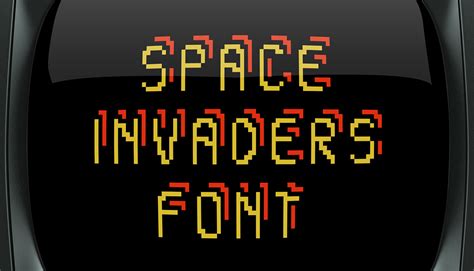
Space Invaders Font. Otf / ttf total files: Web learn about the history and origin of space invaders font, a 1978 arcade game inspired by popular media.
Web space invaders sans serif font license: Web learn about the history and origin of space invaders font, a 1978 arcade game inspired by popular media. Web find the best 6 free fonts in the space invaders style on fontspace, a platform for font designers and users. Otf / ttf total files:
Web space invaders sans serif font license: Web learn about the history and origin of space invaders font, a 1978 arcade game inspired by popular media. Web find the best 6 free fonts in the space invaders style on fontspace, a platform for font designers and users. Otf / ttf total files: Web space invaders sans serif font license: